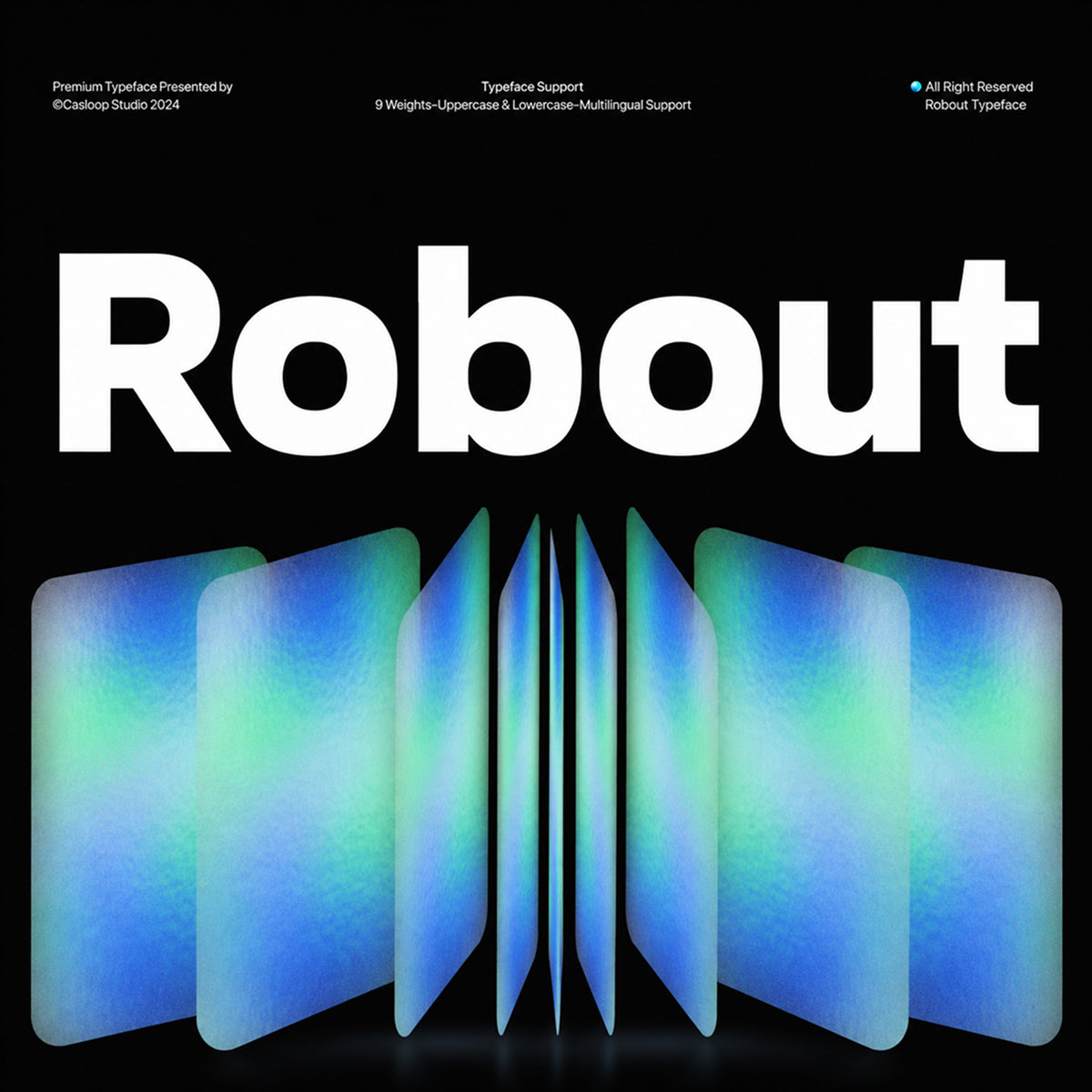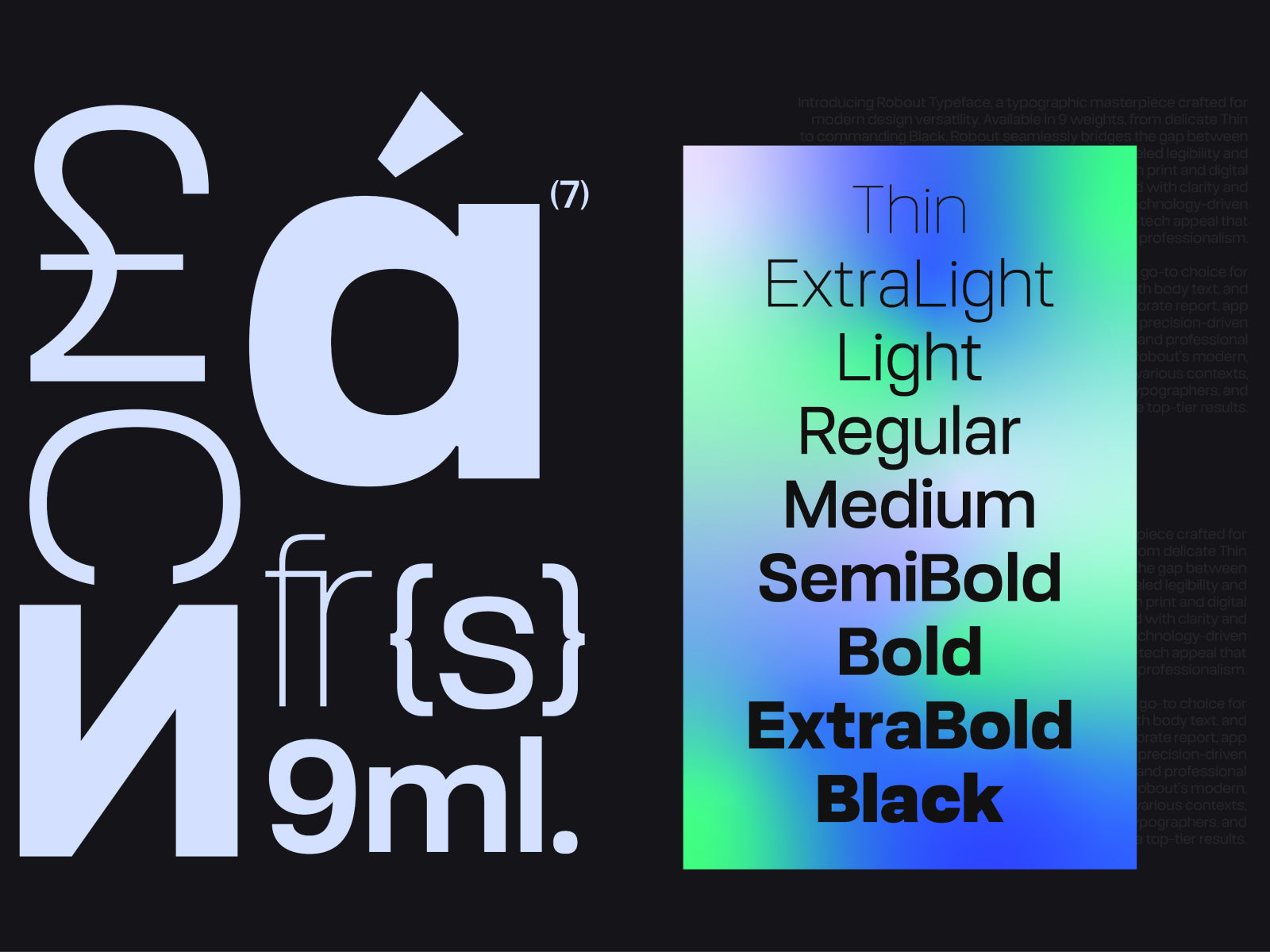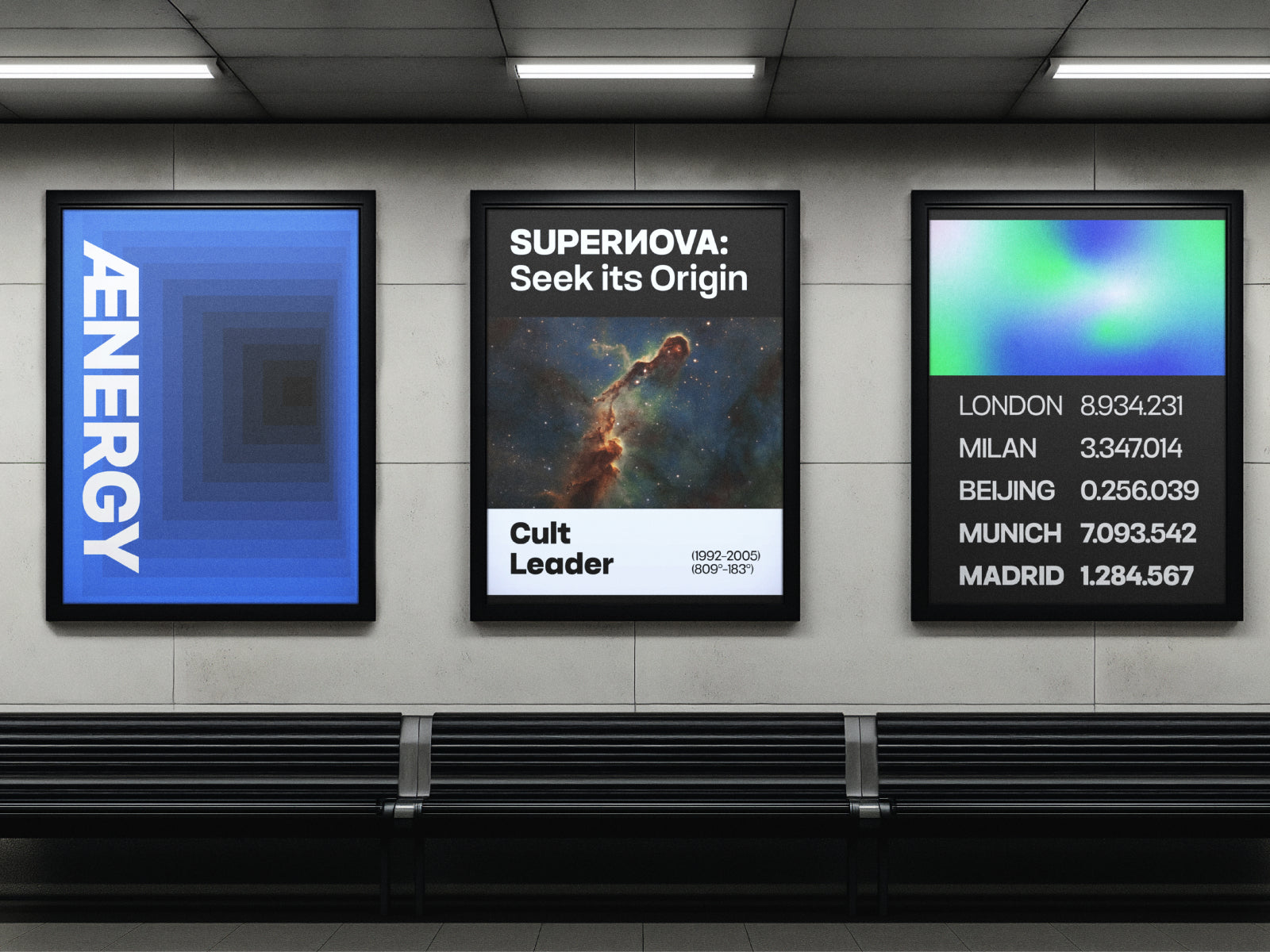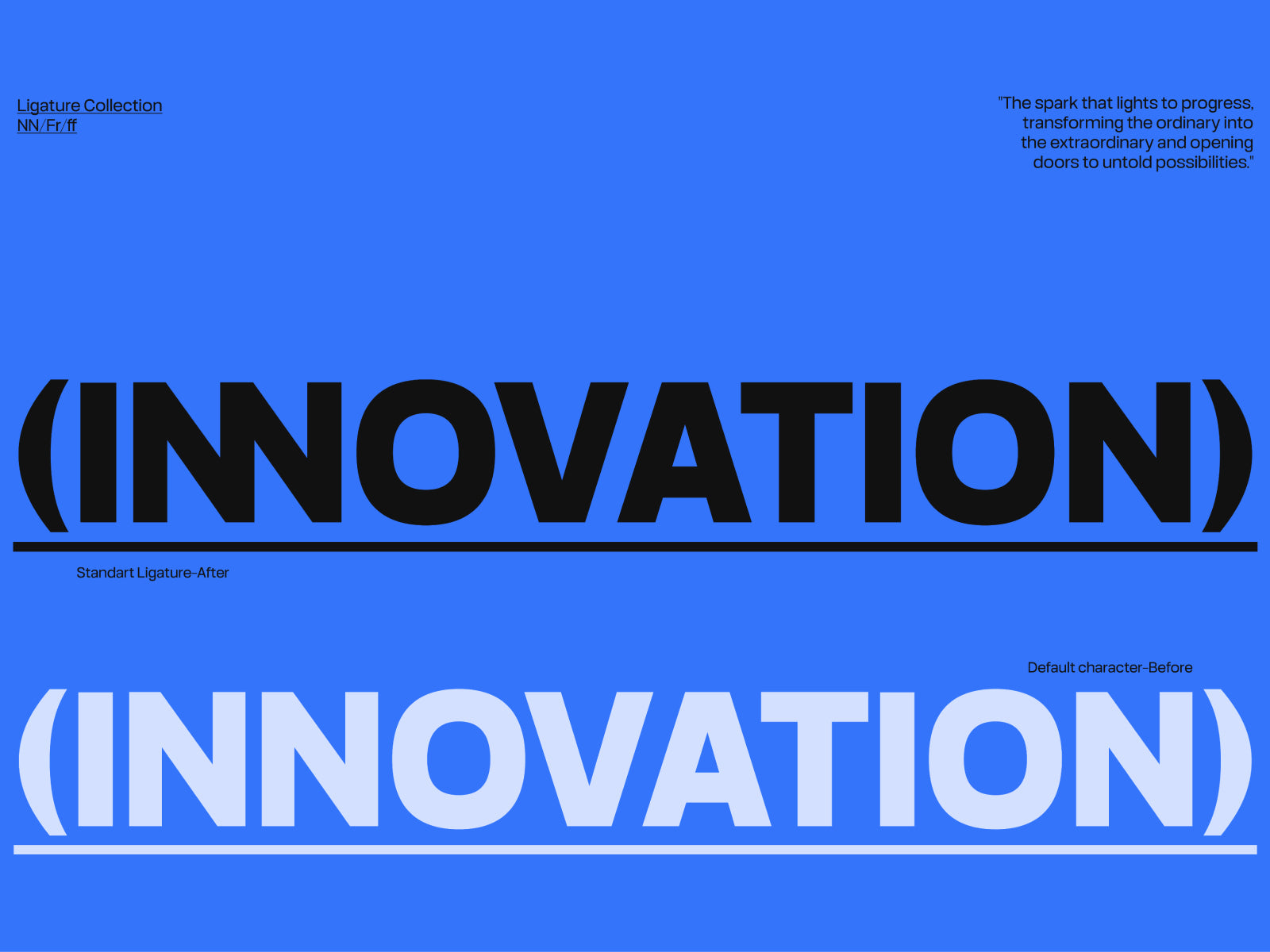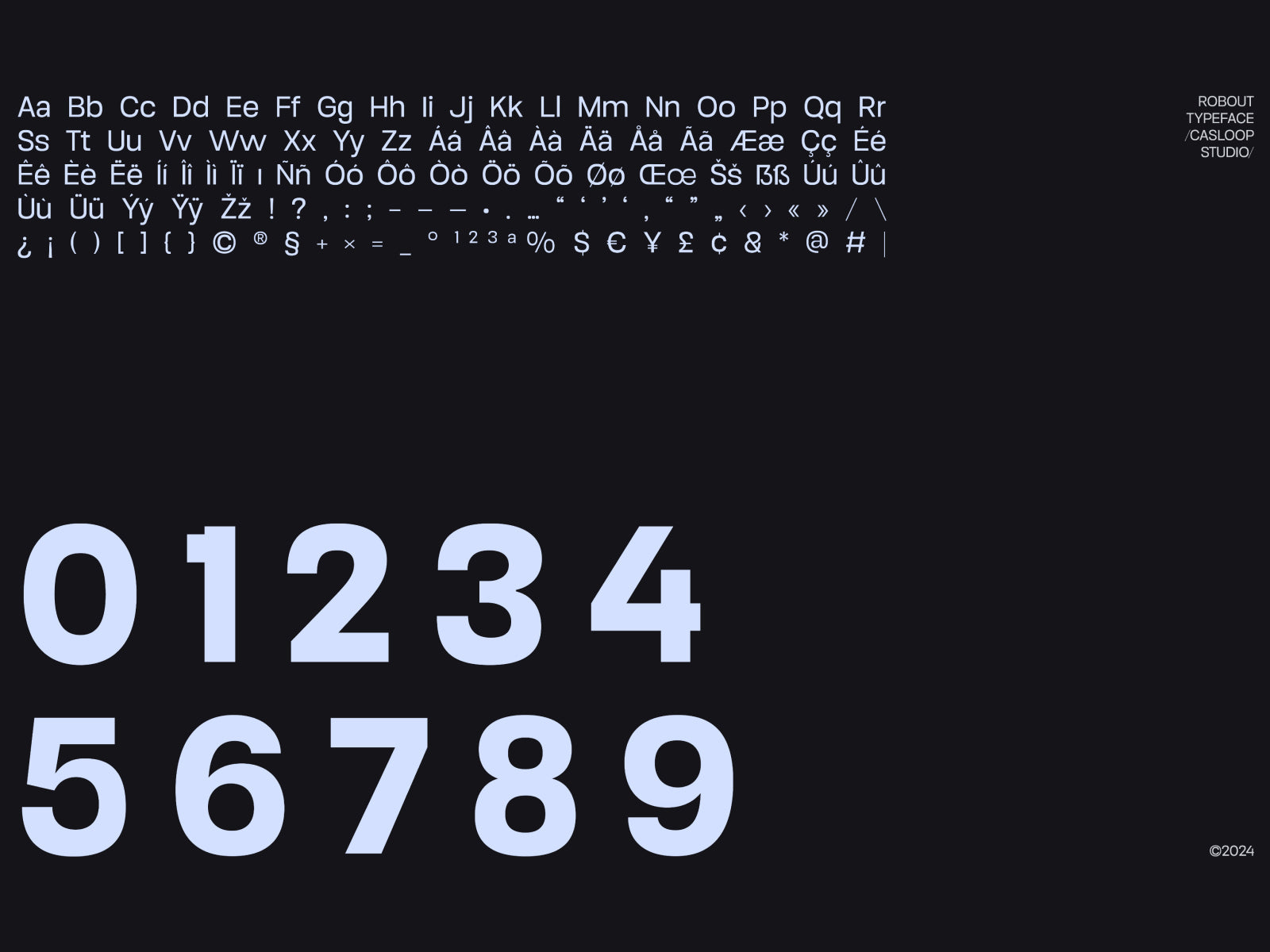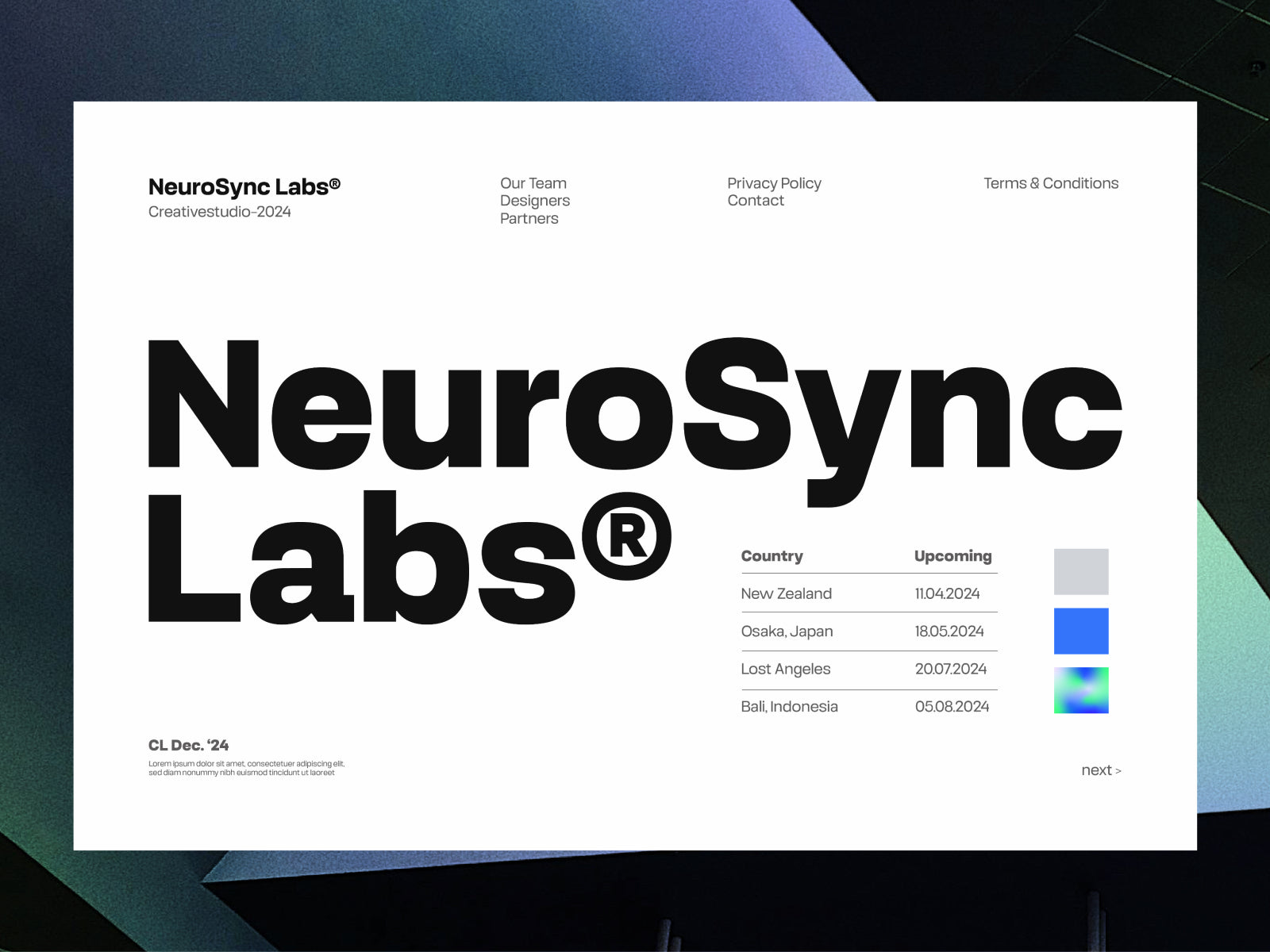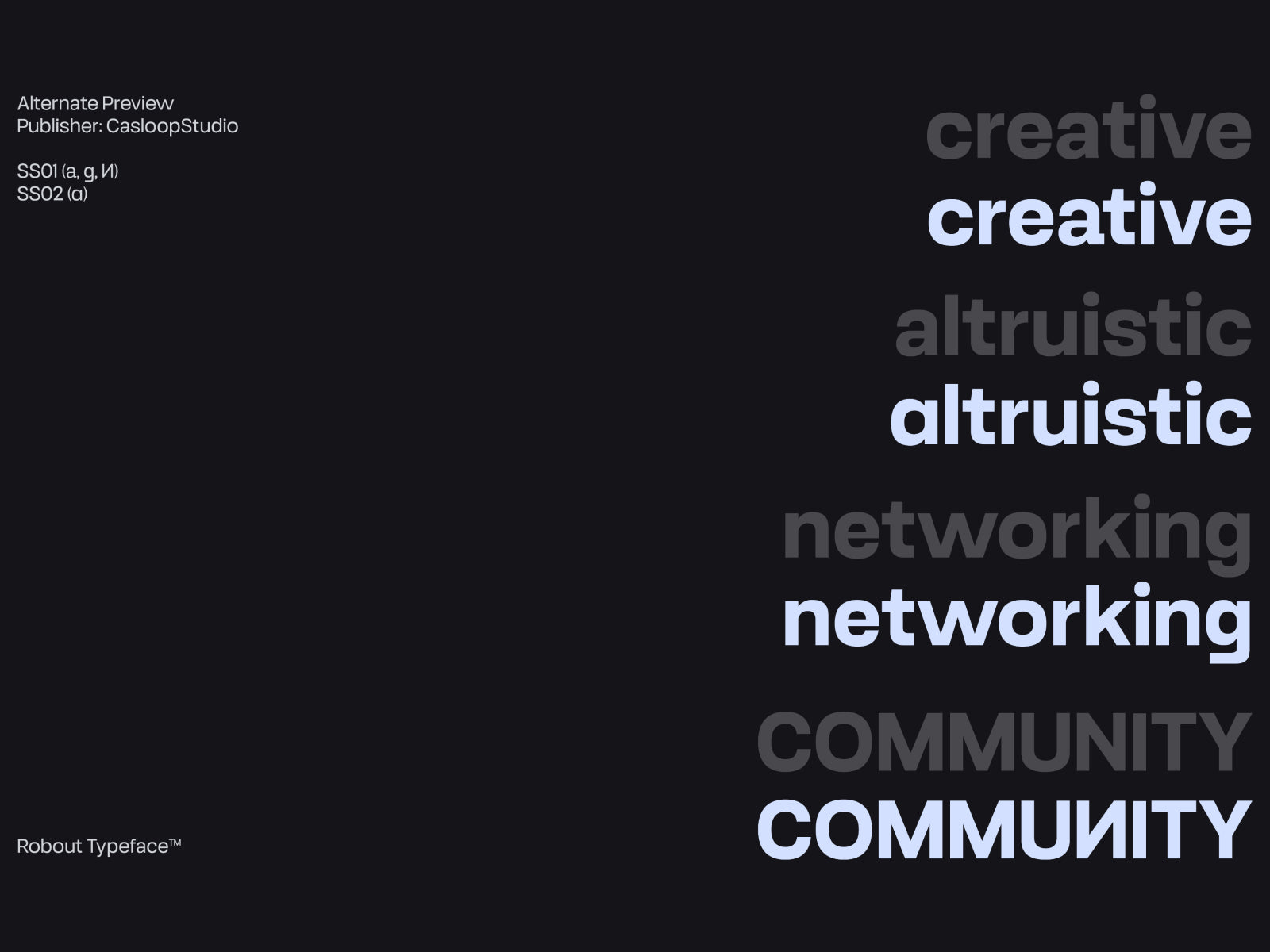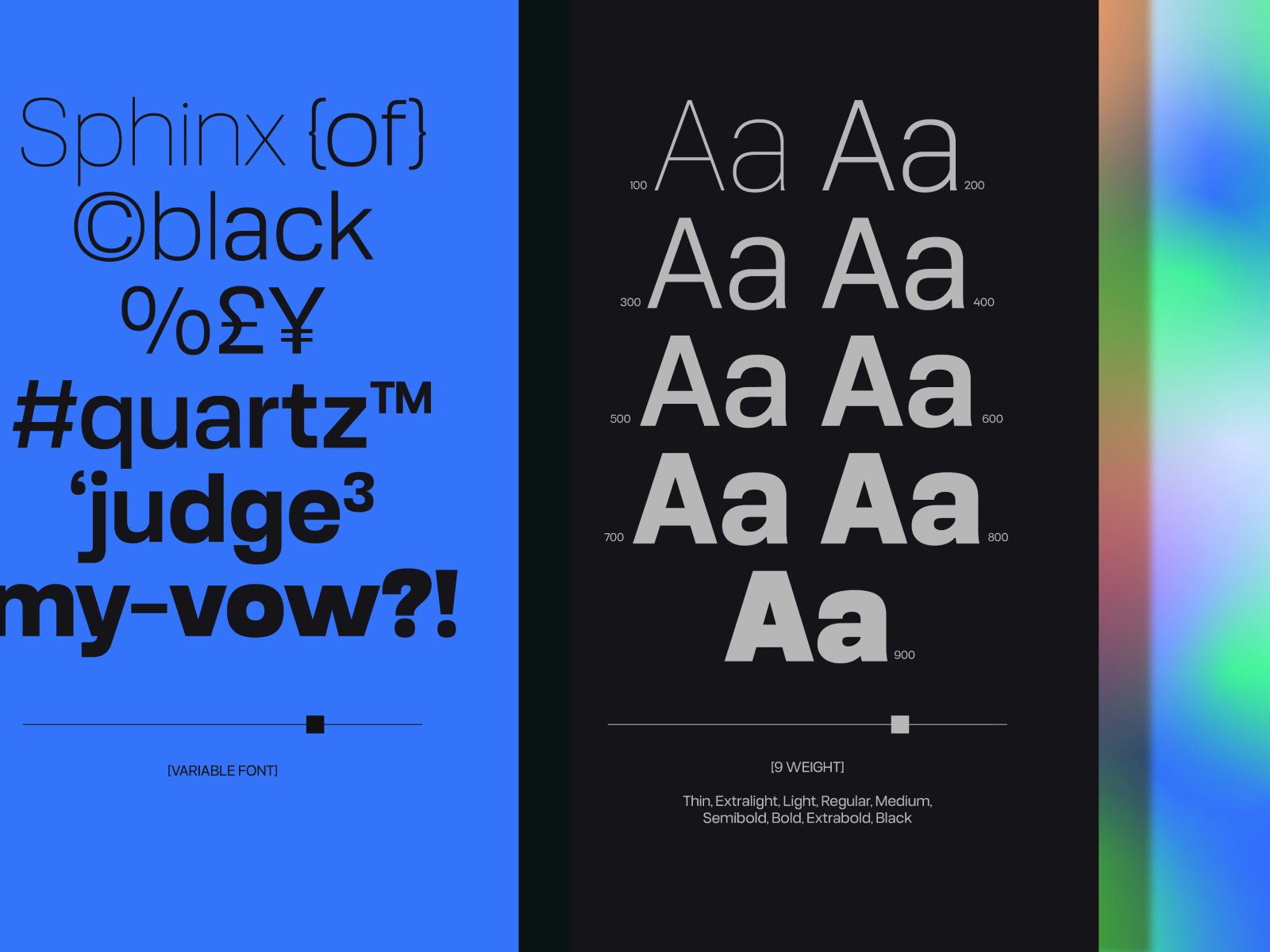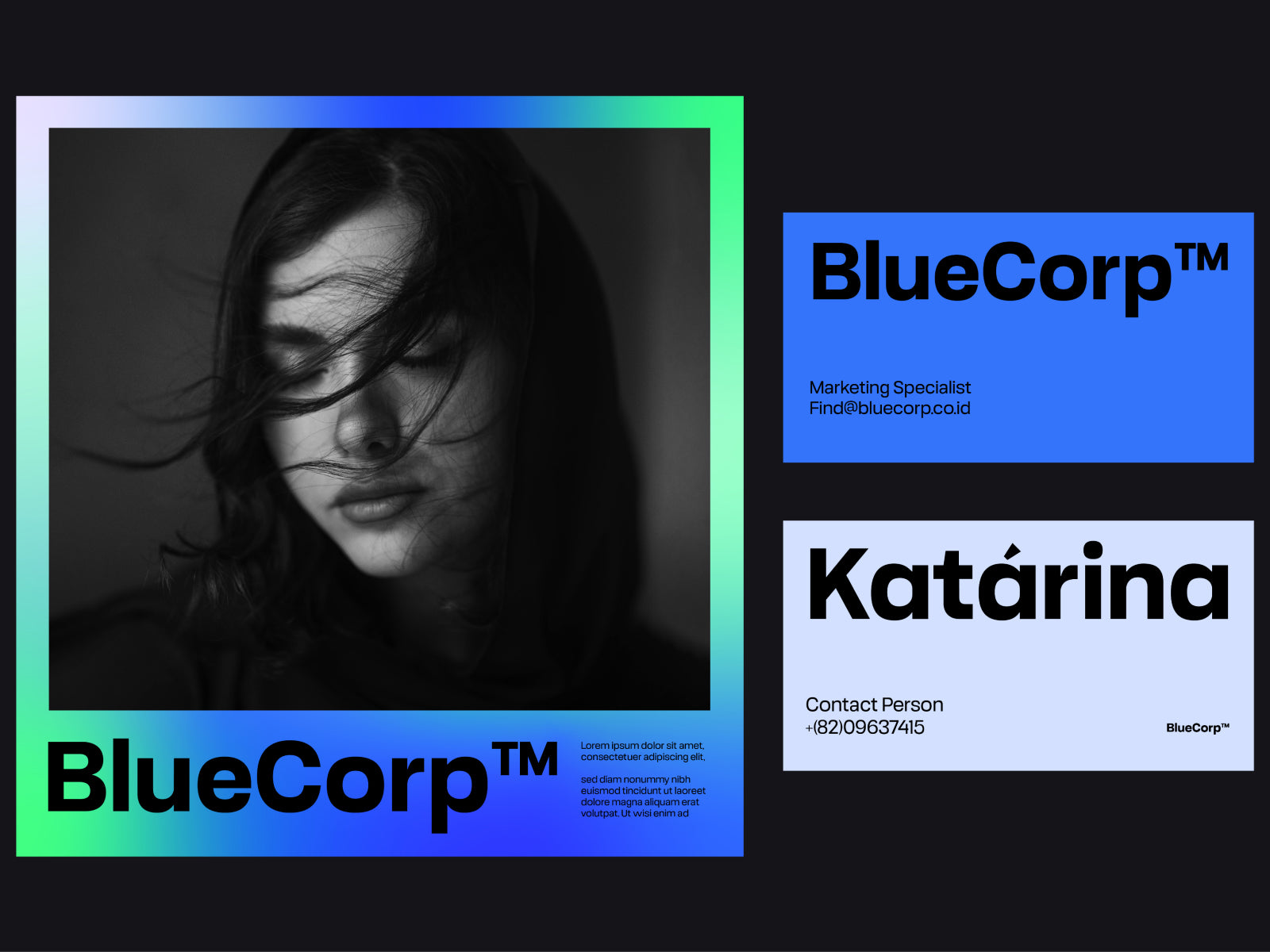
Robout - Modern Geometric Font
Introducing Robout is a marquee-worthy modern sans-serif typeface designed for contemporary branding, editorial design, and digital interfaces. With clean, geometric letterforms and a focus on clarity and precision, Robout exudes professionalism and sophistication. Inspired by geometric grotesk styles, Robout seamlessly balances functionality with contemporary flair. Here are the key features and highlights of the typeface:
Features of Robout Typeface
Wide Range of Weights: Robout includes nine weights, from Thin to Black, ensuring flexibility for any project, whether you're creating elegant headings or clear body text.
Variable Font Option: The variable font format allows seamless adjustment of weight and width, giving designers precise control over typography in responsive designs.
Multilingual Support: Robout supports a wide array of languages, including accented characters, making it an excellent choice for global audiences. Bosnian, Catalan, Czech, Danish, German, English, Spanish, Estonian, Finnish, French, Bergen, Wild, Irish, Mango, Croatian, Hungarian, Icelandic, Italian, Lithuanian, Tan, Latvian, Maltese, Dutch, Norwegian, Polish, Haas, Portuguese, Romanian, Slovak, Slovenian, Albanian, Swedish, Turkish.
Robout is a modern geometric sans-serif typeface featuring nine weights from Thin to Black and a variable font option for adjustable weight and width. It supports a wide range of languages and is designed for clarity and precision, making it suitable for contemporary branding and digital interfaces.